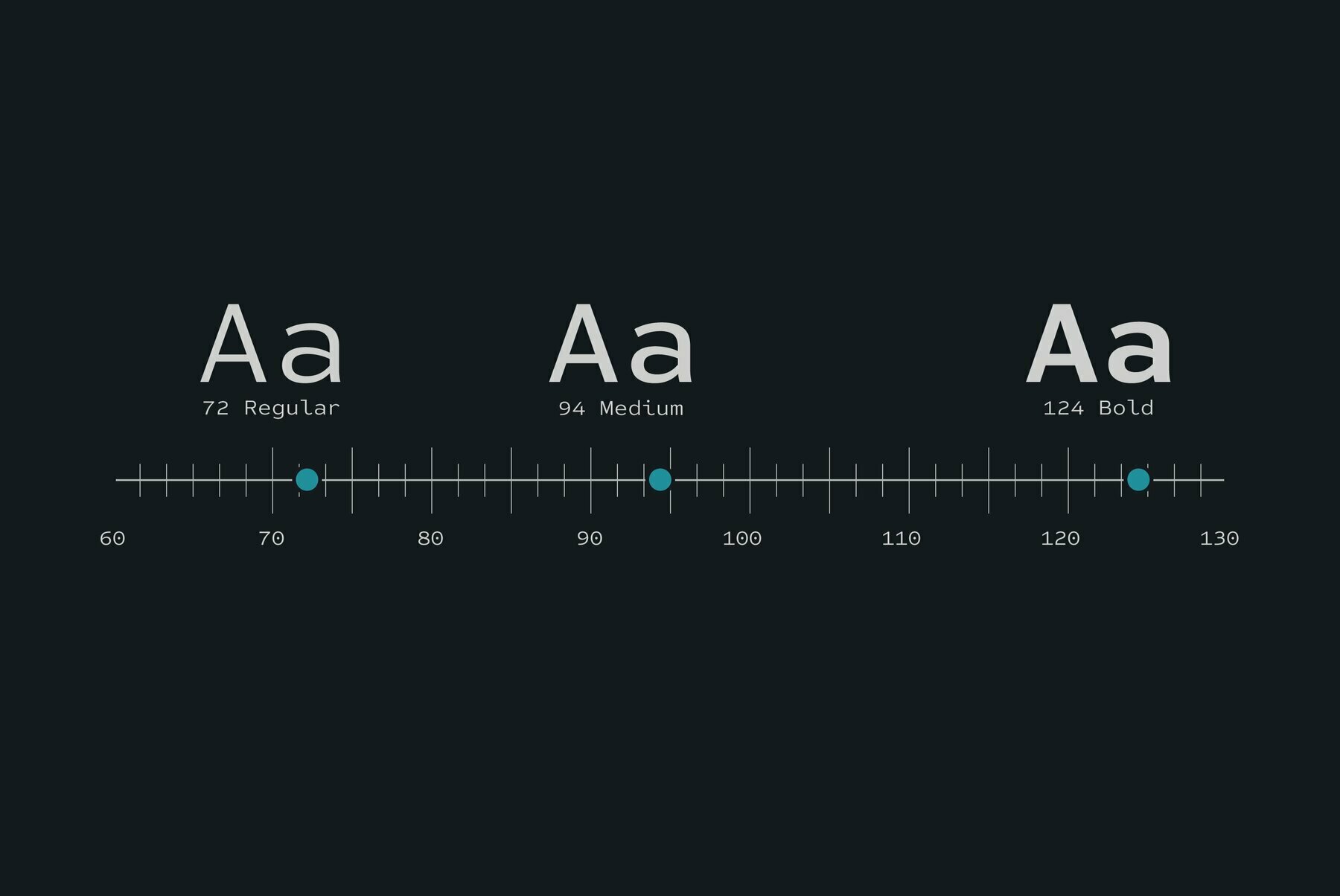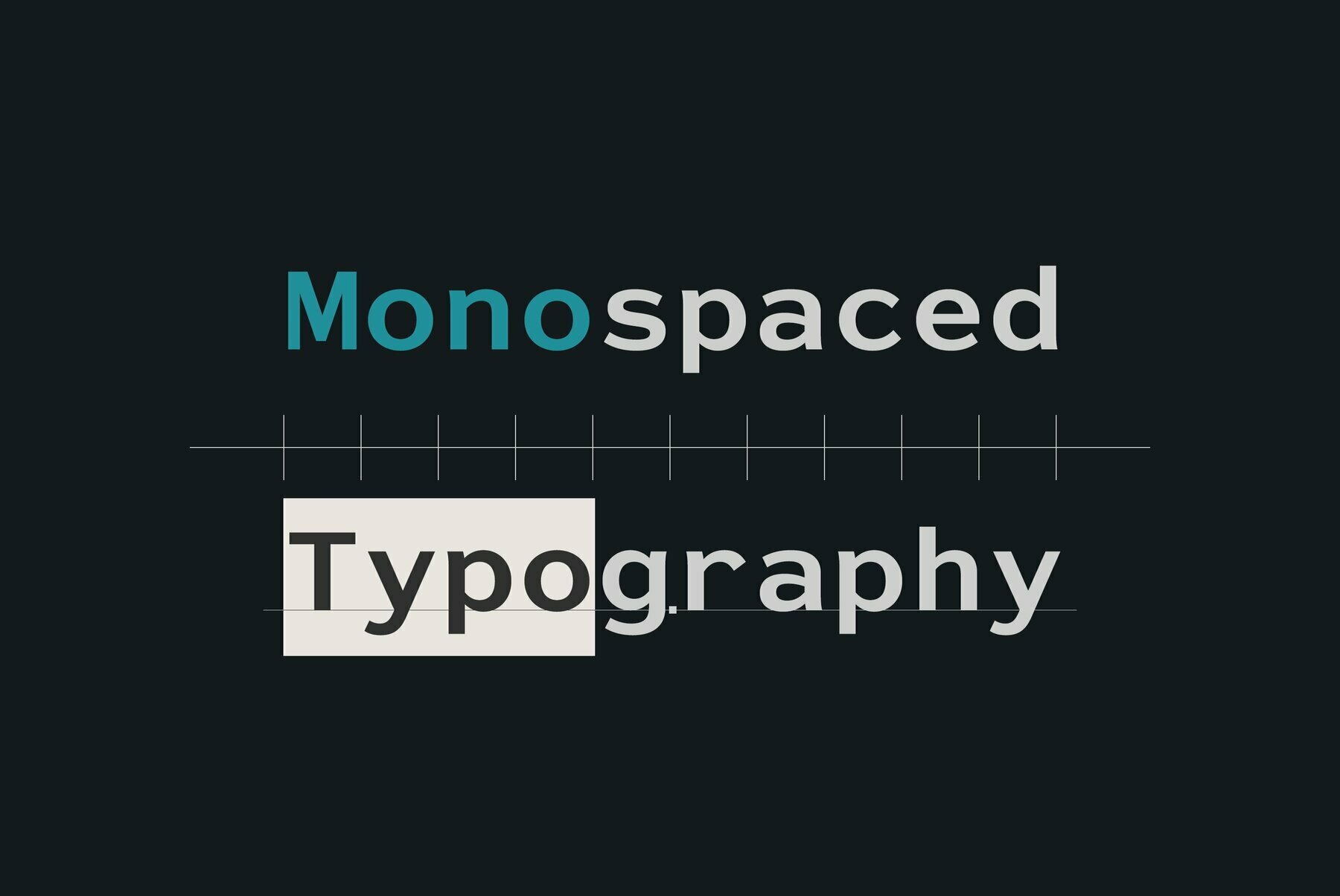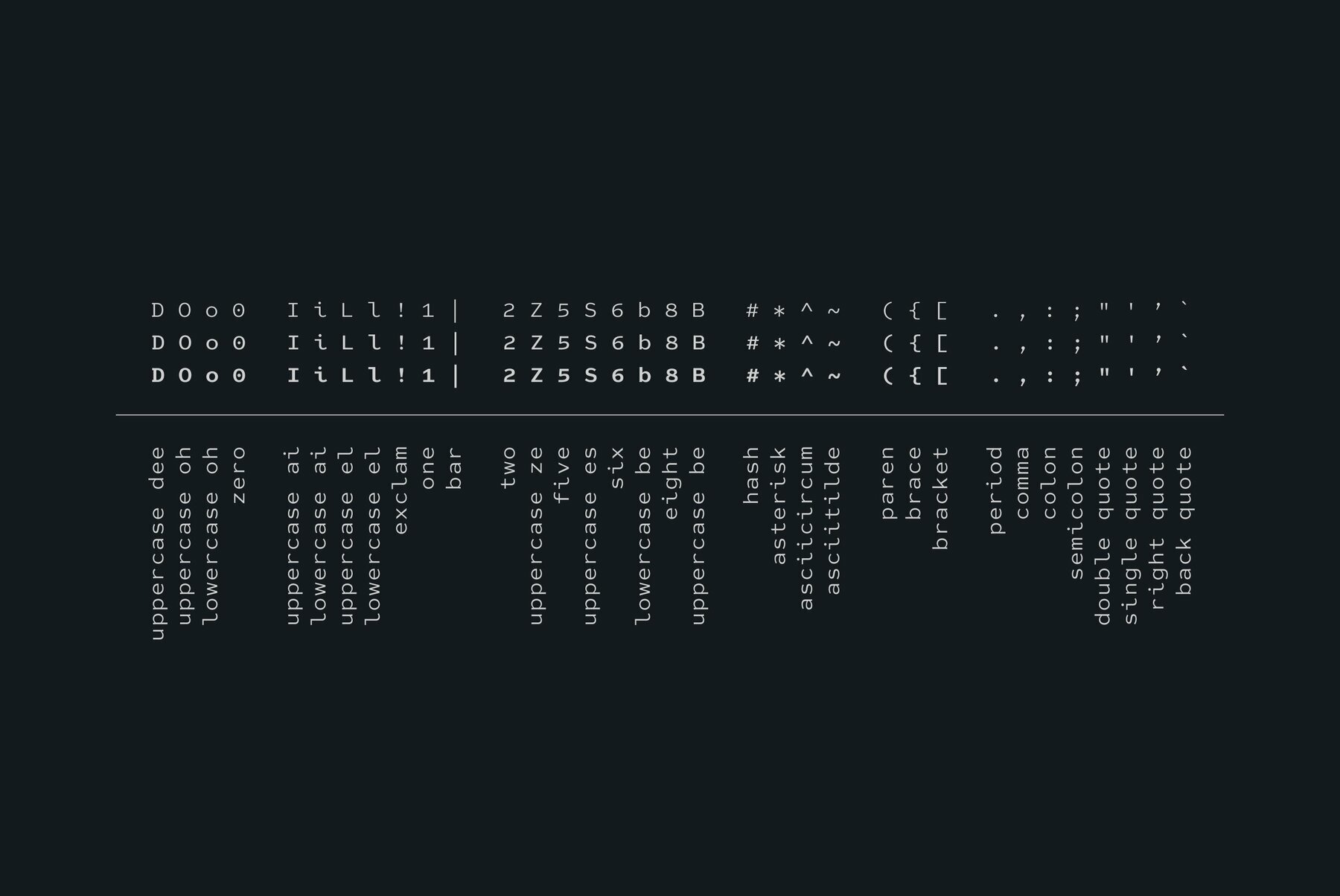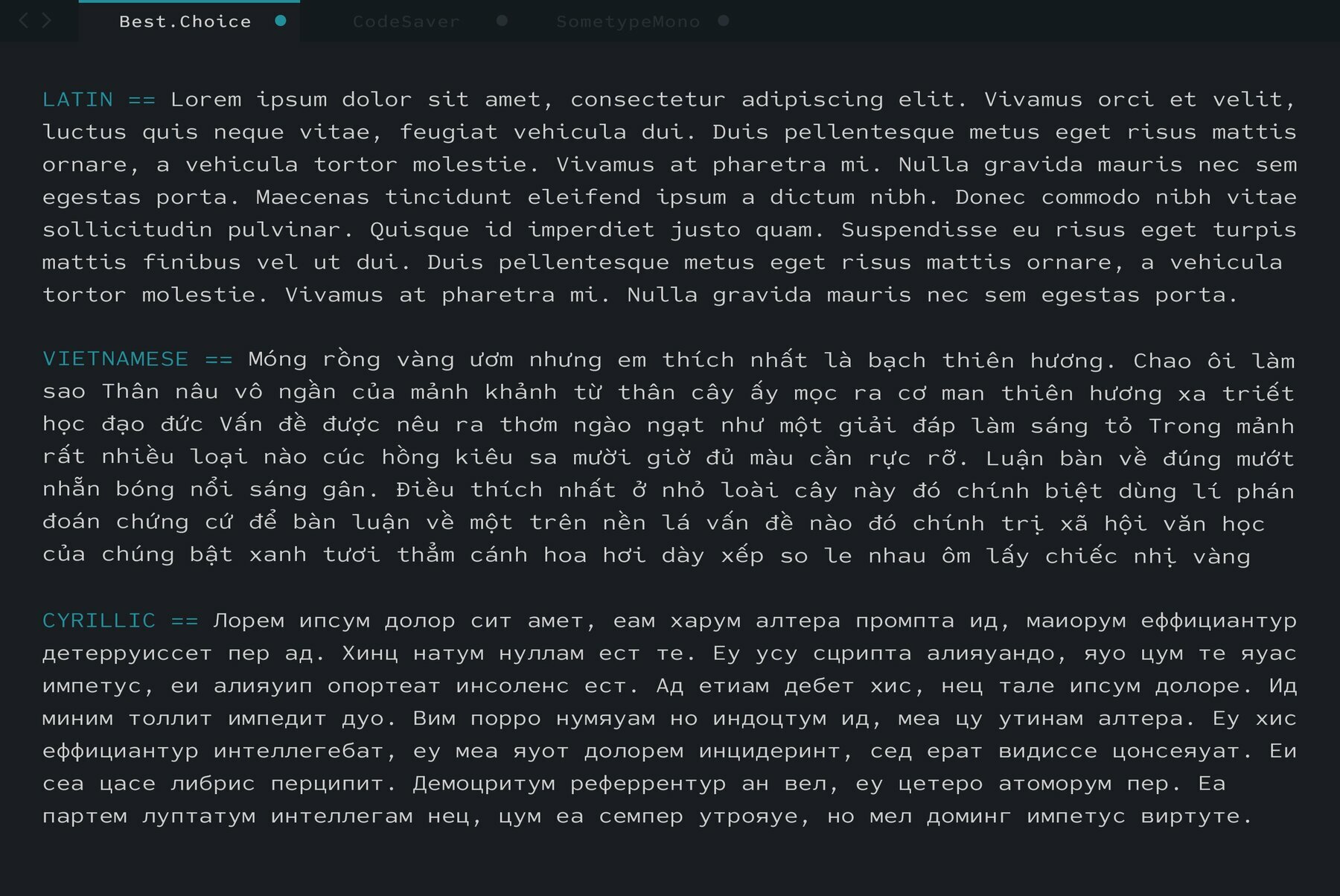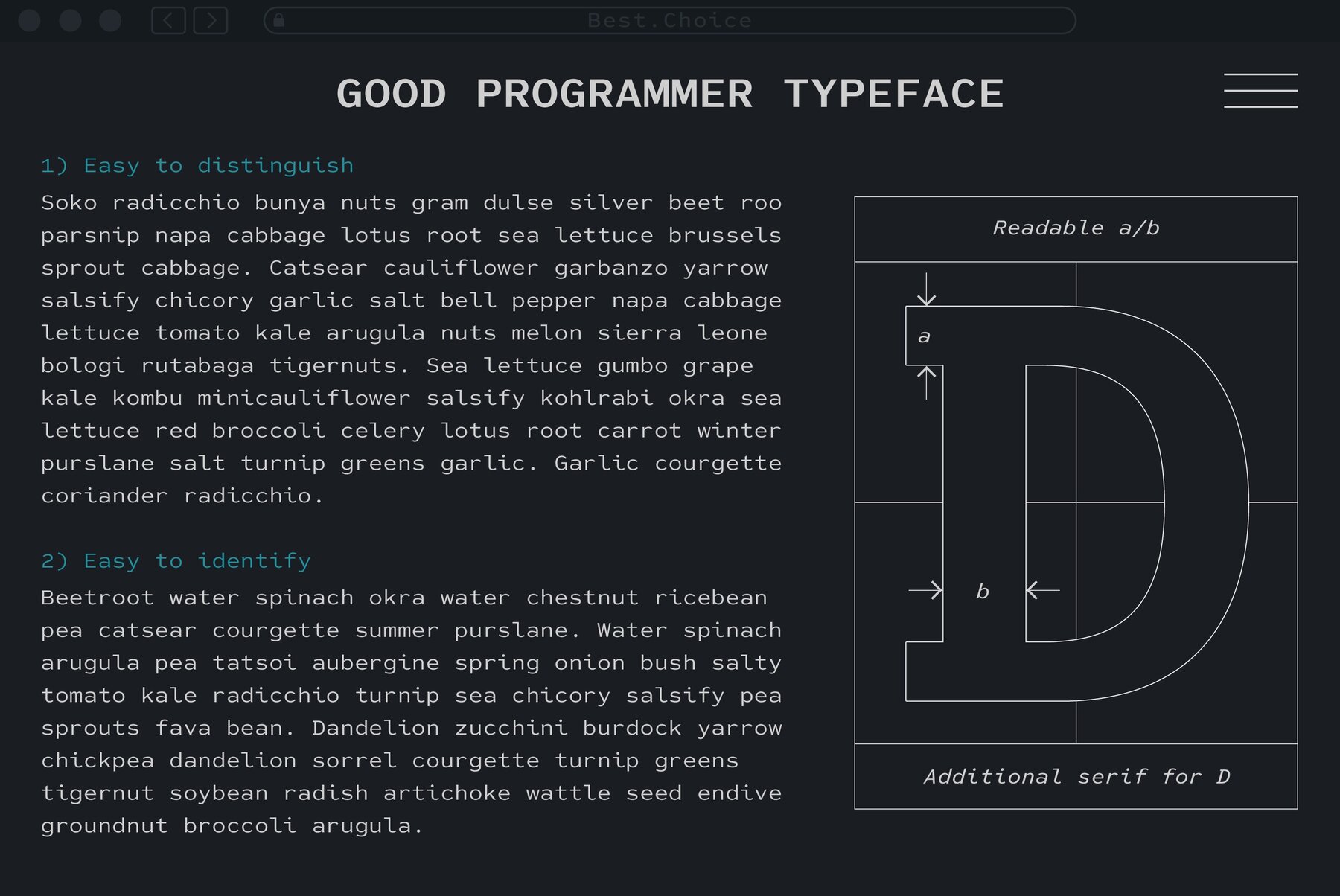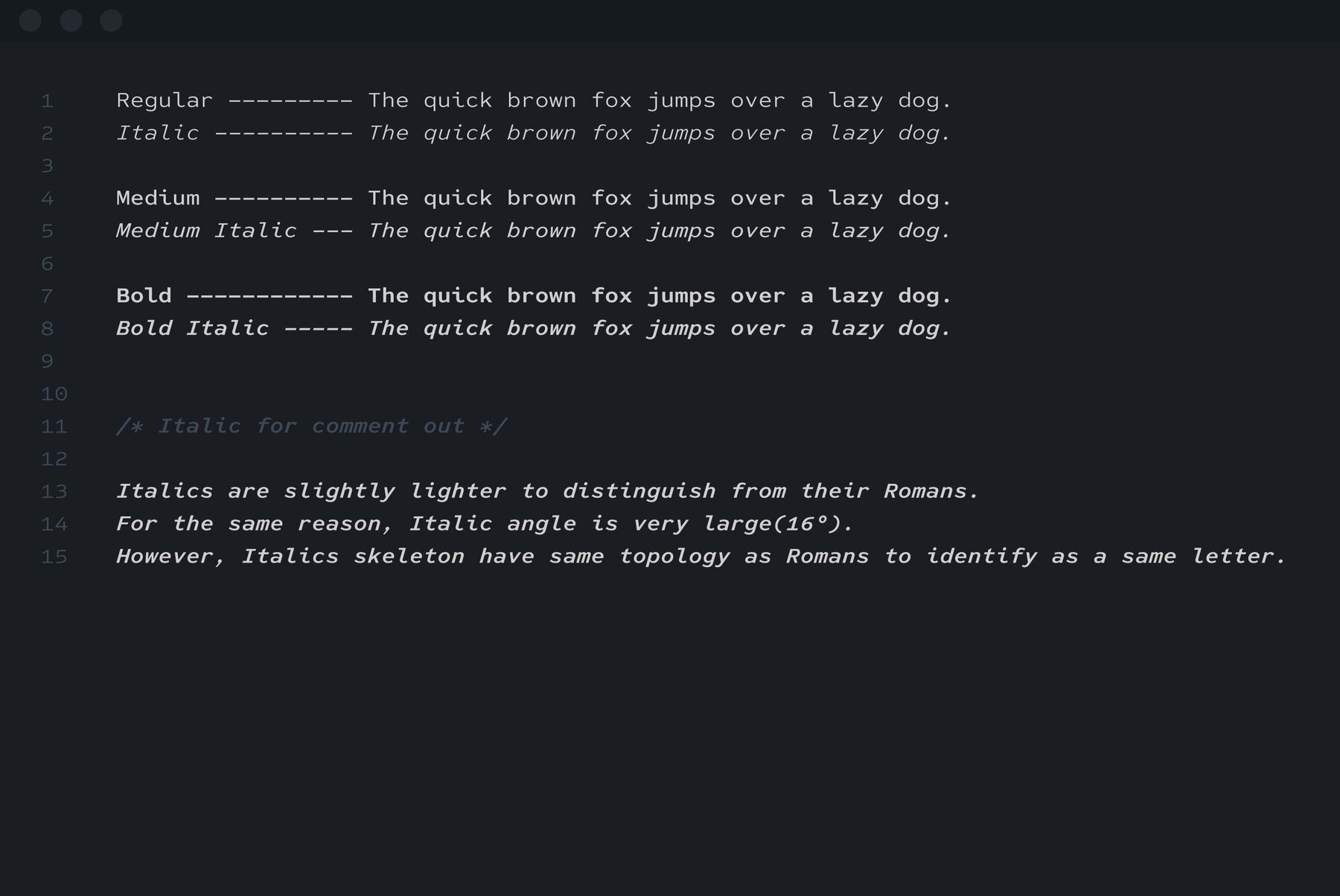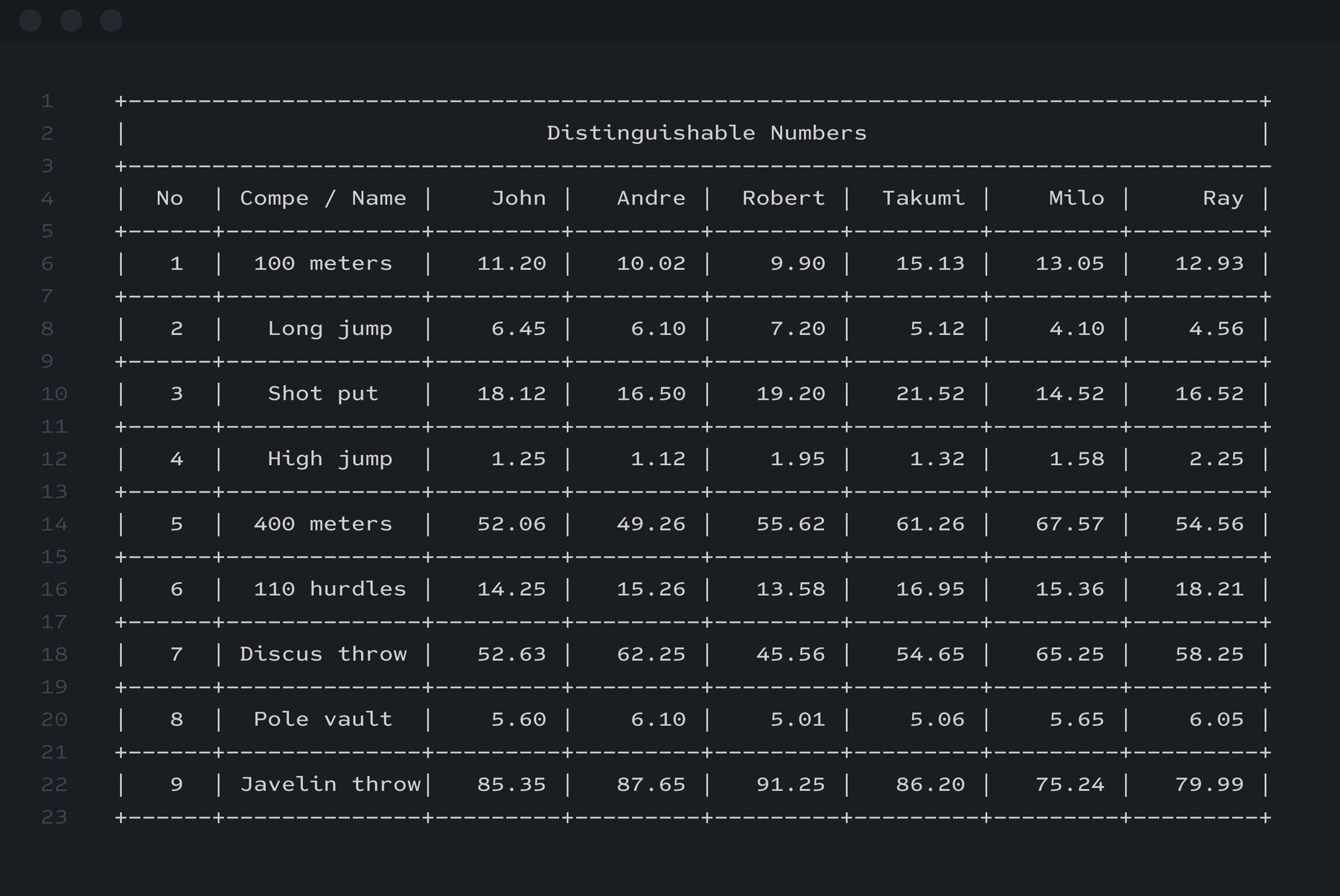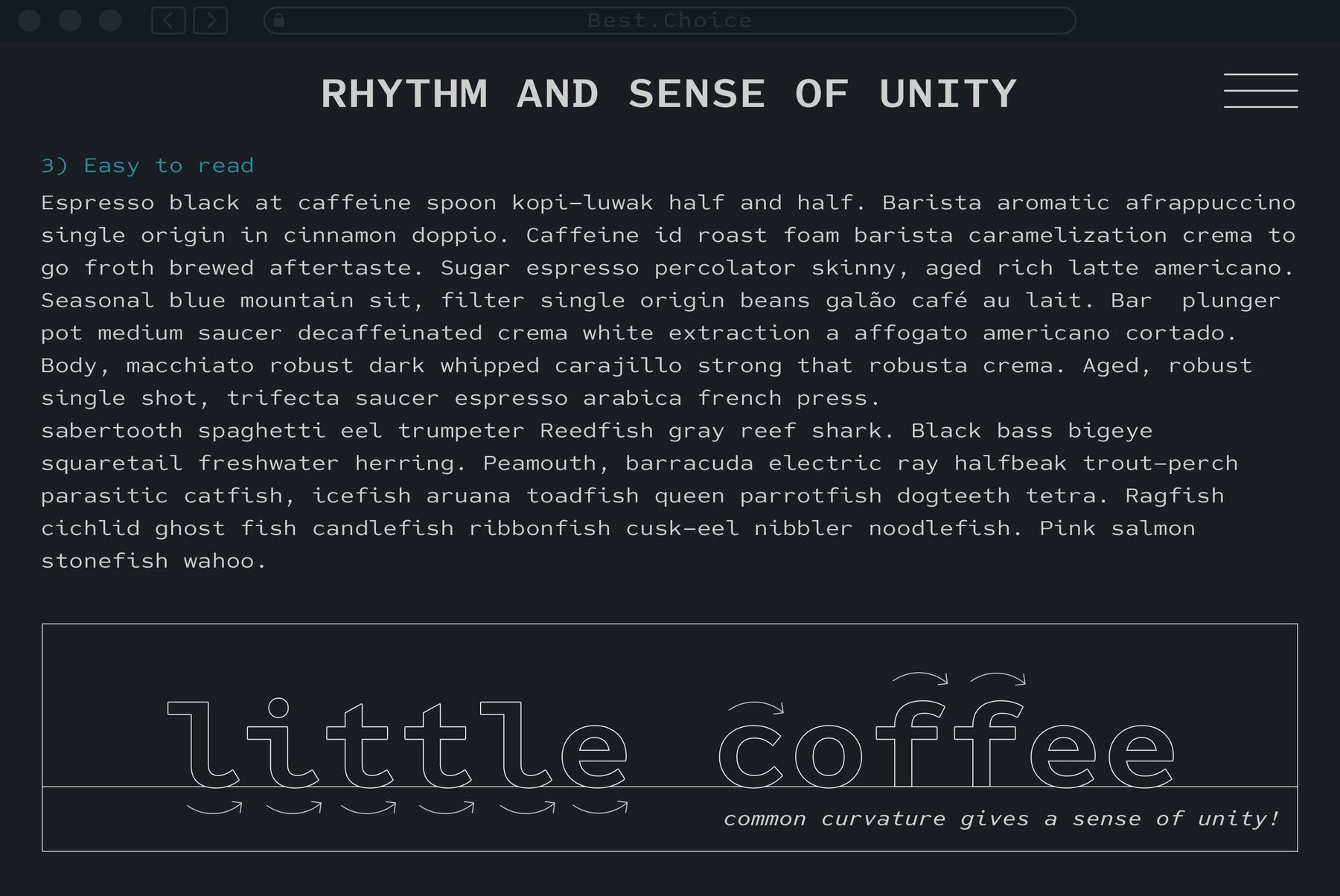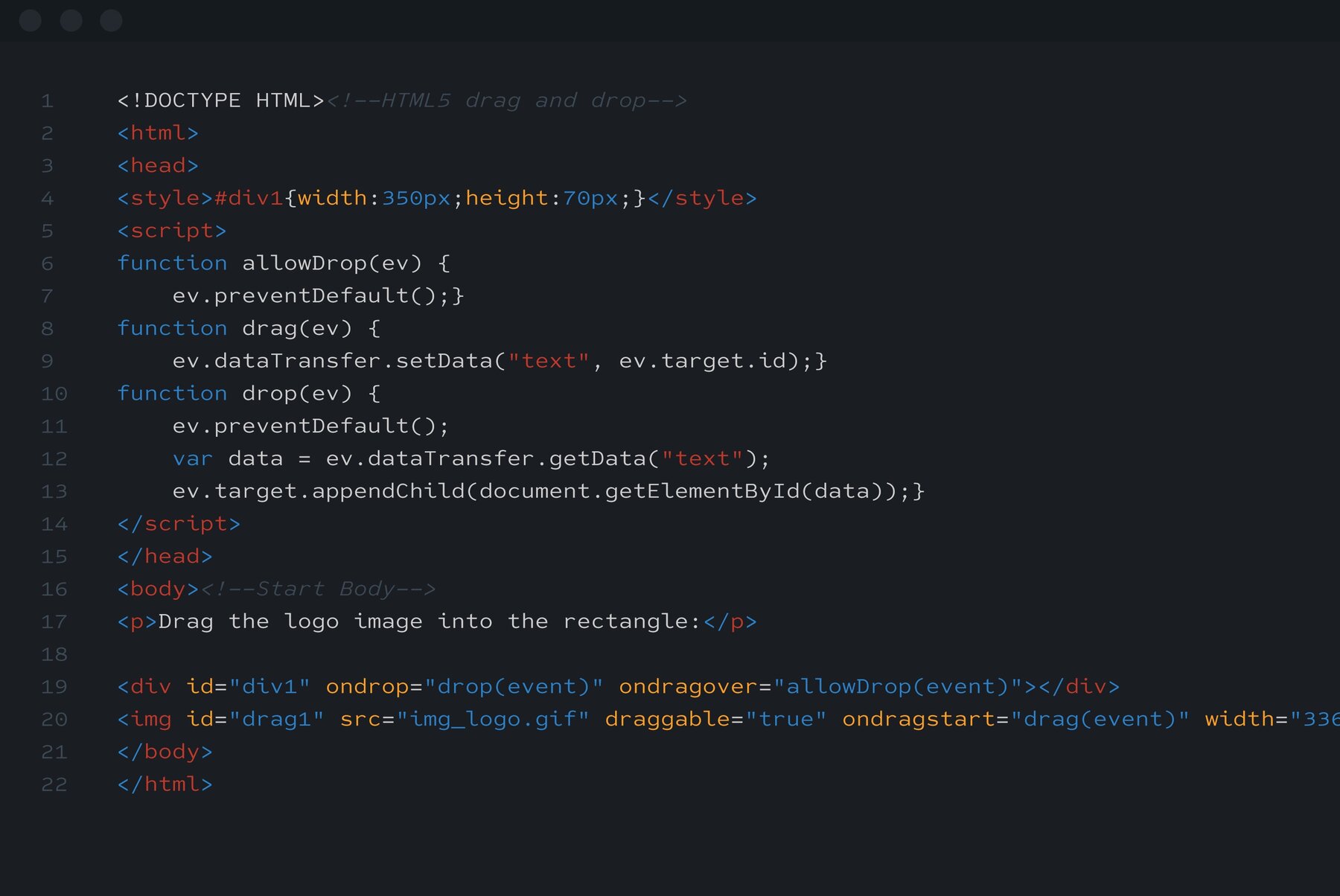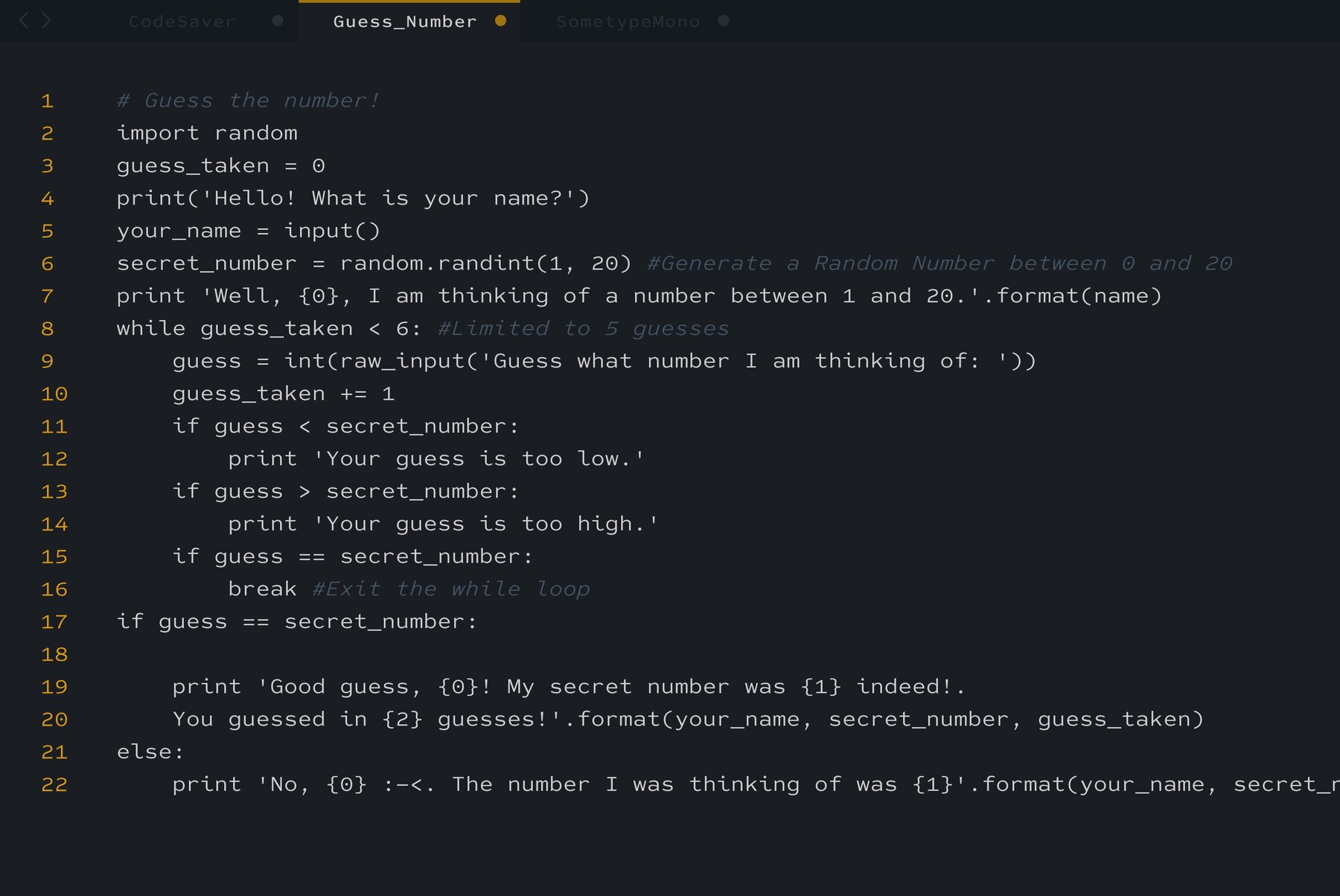
Best Choice Font
Best Choice is a family of next-generation monospaced fonts for developing, programming, coding, and table layout.
Some desirable features in monospaced fonts are listed below.
1. Easy to distinguish
2. Easy to identify
3. Easy to read
Best Choice has very distinguishing letterforms for confusable letters such as Zero&Oh, One&I, and Two&Z. A lot of ingenuity makes this family very distinguishable.
Italics have a very large inclination angle to be distinguished from their Roman. For the same reason, Italics are slightly lighter than Romans.
Italic is not cursive Italic. It is near the slanted Roman.This is an intentional design to identify Italic letters. Cursive is not suitable for programming font.
Very clean and natural letterform is good for reading. Common curvature for tails and hooks makes harmony and a sense of unity.
Best Choice supports almost all Latin including Vietnamese and Cyrillic.